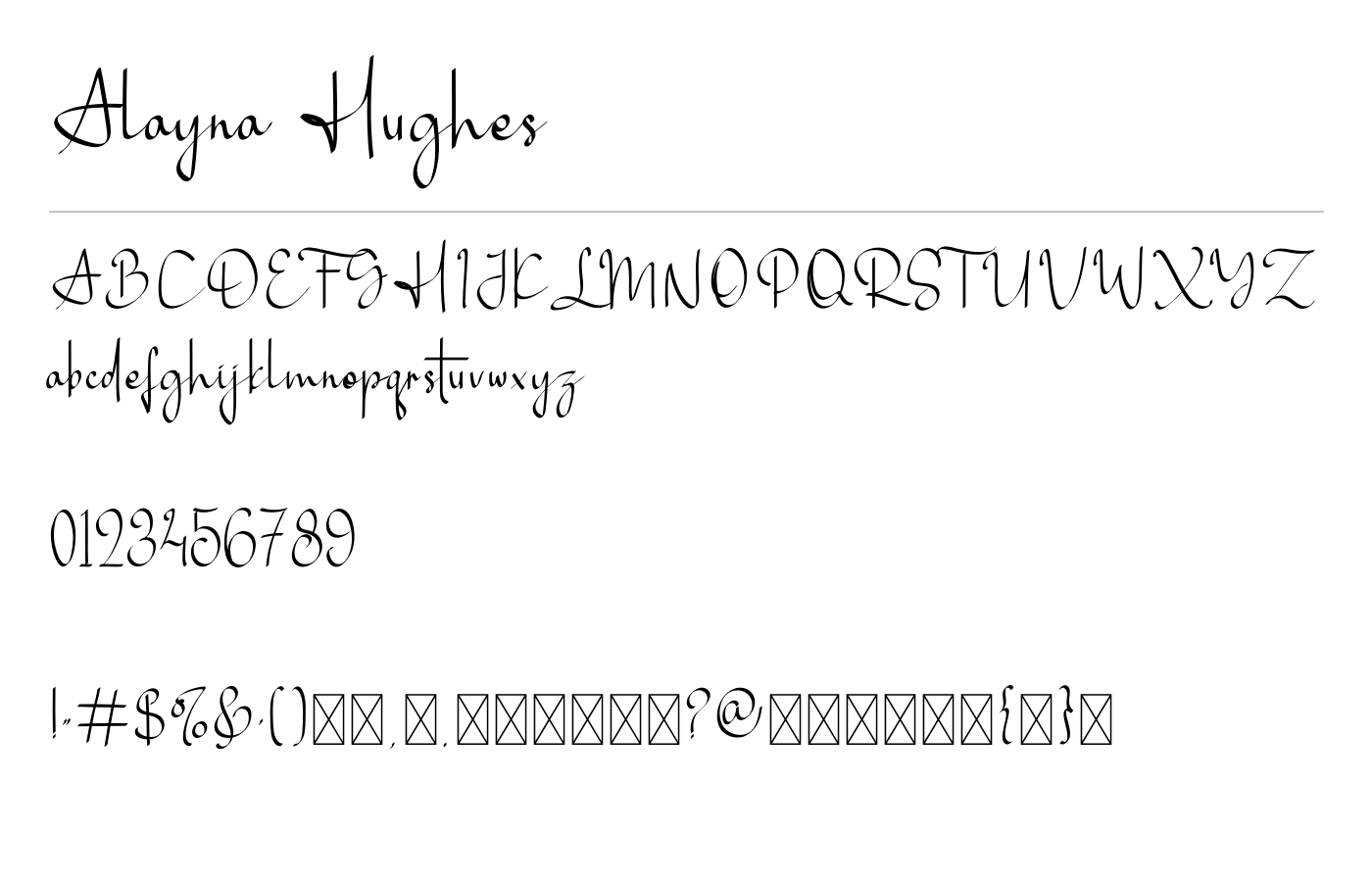
Alayna Hughes is a delicate script font characterized by its slender, elegant strokes and graceful, flowing letterforms. It combines a refined, hand-drawn feel with a touch of whimsy, making it ideal for creative projects that require a personal and stylish touch. This font works beautifully for invitations, branding, and editorial design where a sophisticated yet approachable look is desired.
Alayna Hughes Font
About Alayna Hughes Font
| Font family | Alayna Hughes Font |